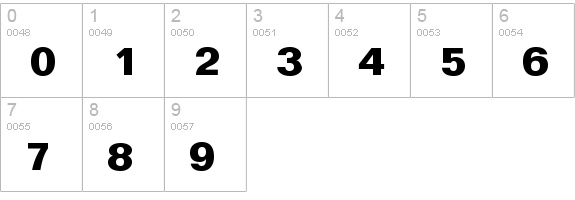
Folio Std Bold Font Details
Folio Std Bold is a strong, high-contrast variant in the Folio typeface family \xE2\x80\x94 well suited to headlines, attention-grabbing titles, and strong calls-to-action.
Folio Std Bold is a striking and versatile typeface that exudes confidence and modernity. Its bold weight commands attention, making it ideal for headlines, posters, and branding projects that require a strong visual impact. The clean lines and geometric shapes of Folio Std Bold give it a contemporary edge, while its readability ensures that your message is delivered with clarity and authority. What's even better is that Folio Std Bold is available for free download at FontsMarket.com. This means you can easily access this premium font without any cost, allowing you to enhance your designs without breaking the bank. Whether you're a professional designer looking to expand your font library or a hobbyist looking to elevate your projects, Folio Std Bold is a fantastic choice that won't disappoint. Download it today and take your designs to the next level!